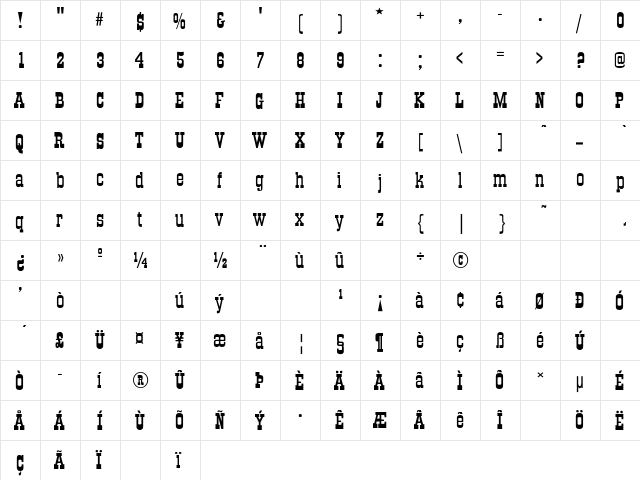
BoomExt-Normal Regular
BoomExt-Normal takes a measured approach to typography — its balanced proportions and neutral character make it a reliable workhorse for both digital and print work.